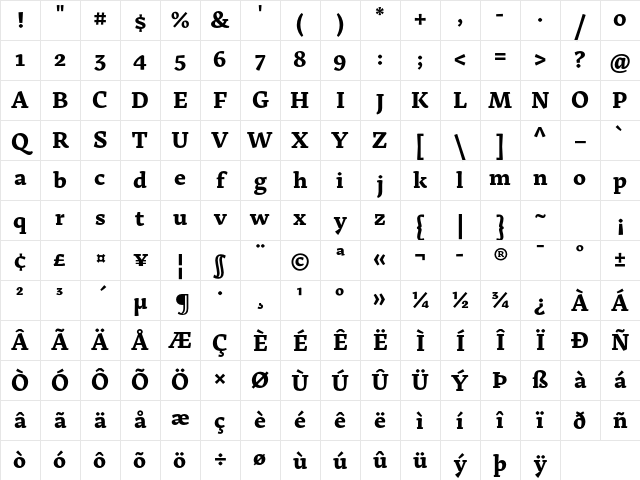
MP RSArek Latin Bold Free Font
MP RSArek Latin Bold
Foundry: Rosetta
Designer: Khajag Apelian
Design Context for MP RSArek Latin
MP RSArek Latin is a composed and adaptable typeface that performs quietly and consistently across a wide range of design contexts. Its bold stroke weight gives it real presence on the page.
Who designed the MP RSArek Latin Bold font?